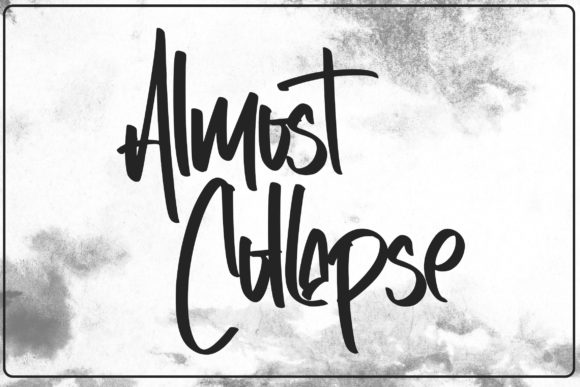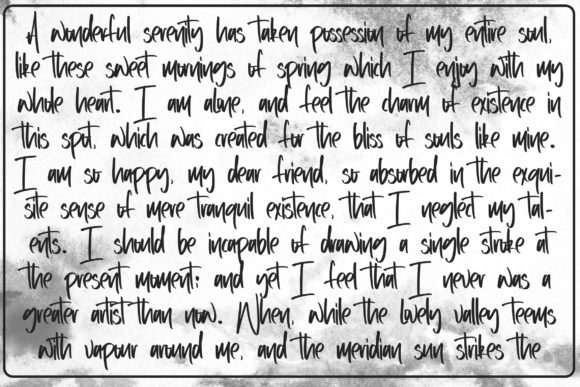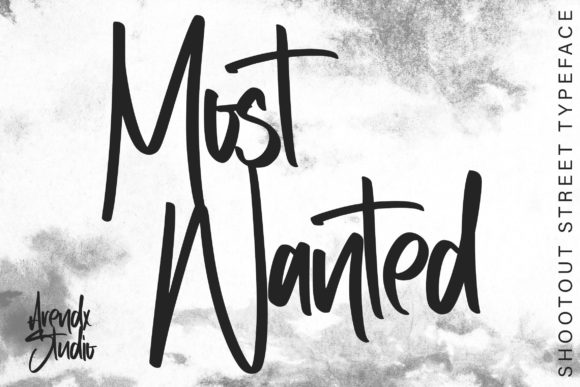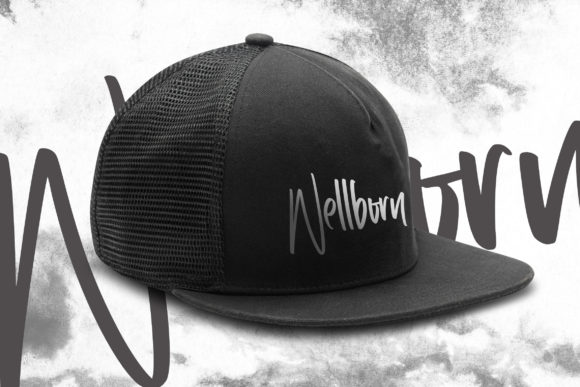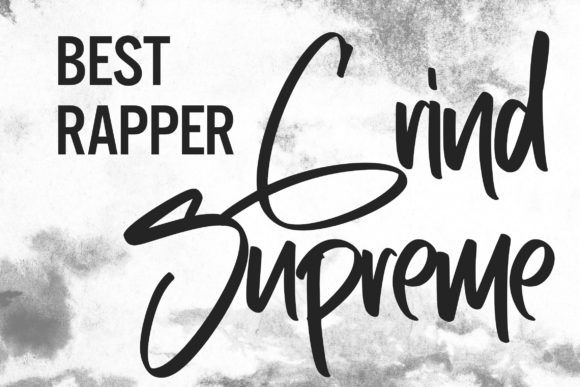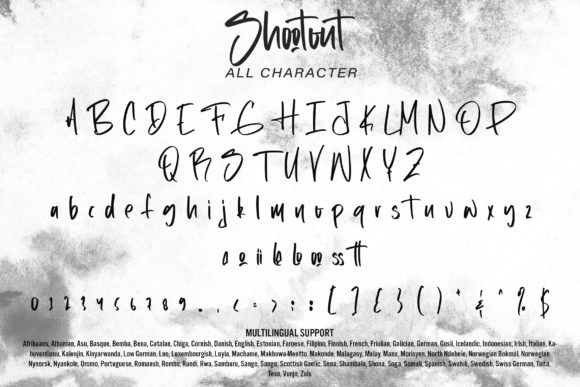
Shootout Font
About Shootout Font
Shootout is a cool and bold handwritten font, inspired by the urban art. This font reads as strong, confident, and dynamic and can add tons of nostalgic character to your designs.